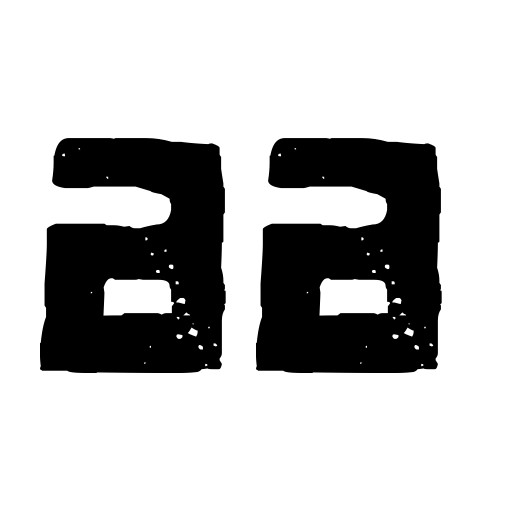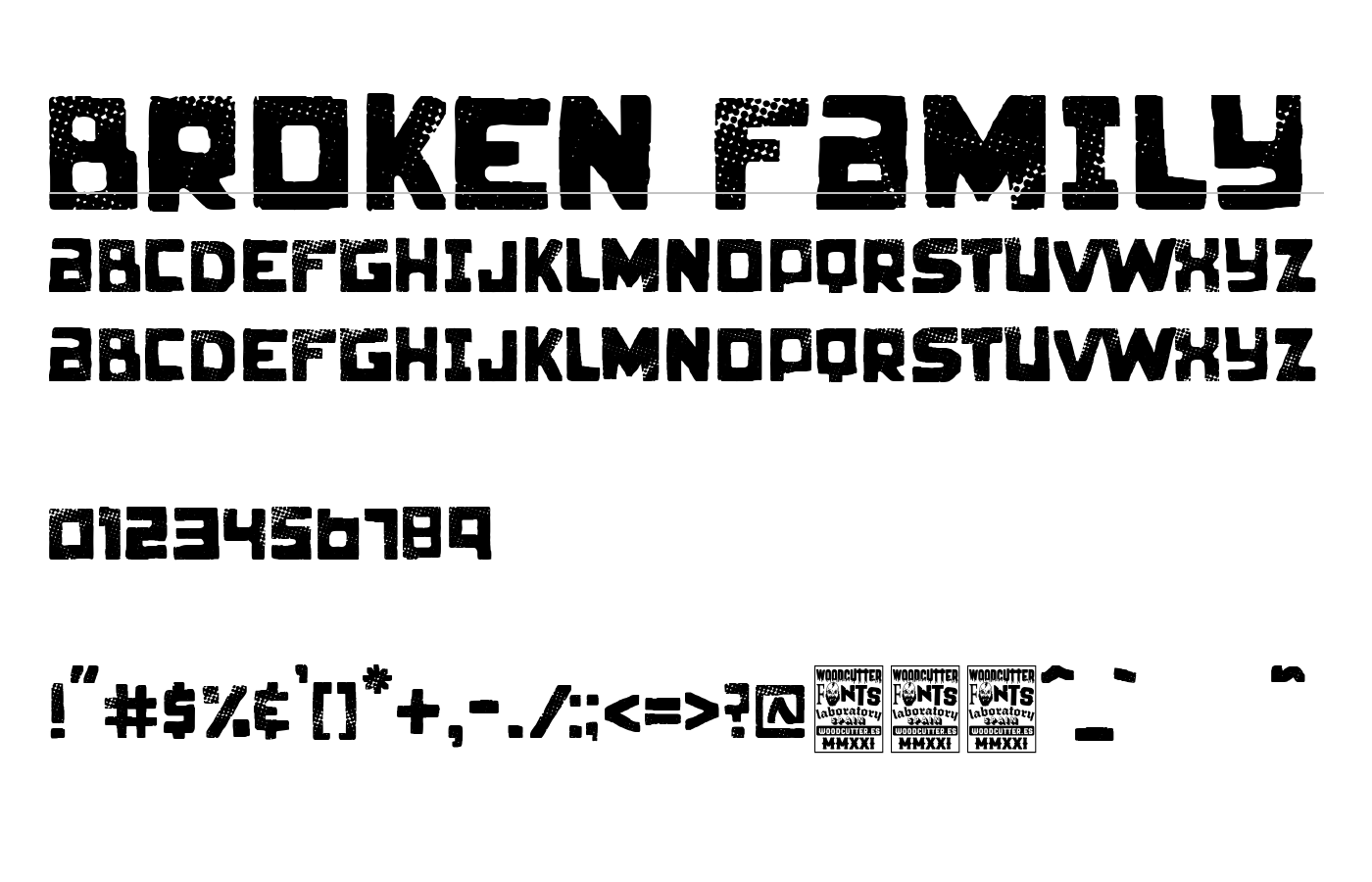
Broken Family is a bold, distressed sans serif font with a rugged, hand-crafted feel. Its blocky letterforms and uneven texture give it a gritty, vintage style ideal for creative projects needing a strong, raw character. This font works well for posters, logos, and edgy branding where an unmistakably bold and unique voice is desired.
Broken Family Font
About Broken Family Font